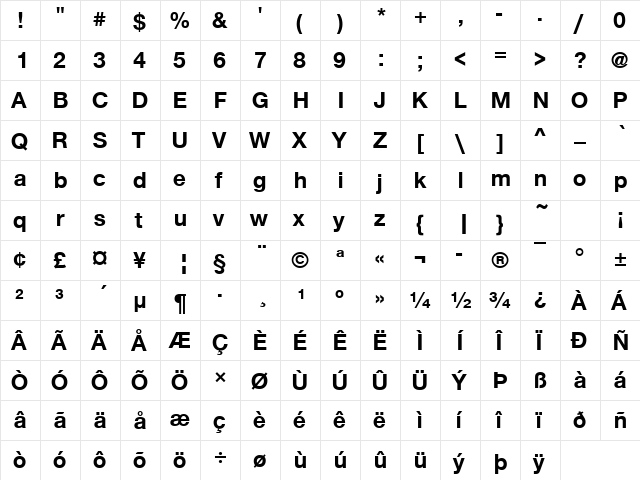
NimbusSanNovD Bold
Design Context for NimbusSanNovD Typeface
NimbusSanNovD offers clean, dependable letterforms without strong stylistic allegiance, making it a practical choice for designers who need flexibility. The heavy weight commands attention and anchors typographic hierarchies.